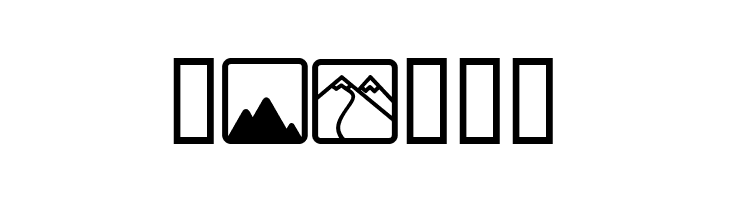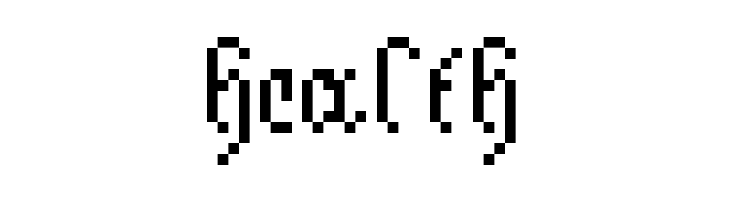
A classic calligraphic font with elegant, flowing strokes and dynamic character design.
A bold stencil font with a rugged, industrial aesthetic.
Nature-inspired icon font with bold mountain and landscape motifs.
A pixelated, retro-style font with a blocky, 8-bit appearance.
A modern, geometric font with rounded edges and circular cutouts, offering a playful yet clean aesthetic.
A modern, stencil-like font with bold, rounded strokes and angular cuts.
A bold, modern font with strong, thick strokes and a slightly condensed appearance.
A geometric, octagonal font with a bold, futuristic style.
A playful, bold font with a modern, cut-out style.